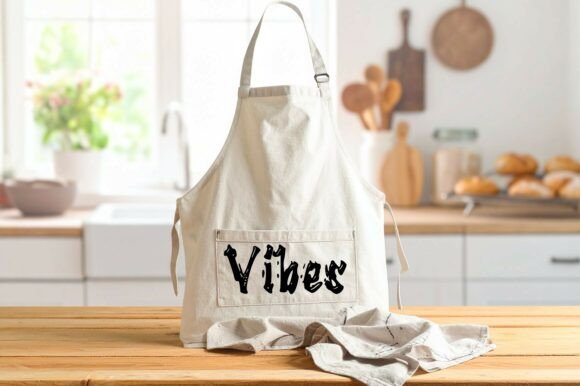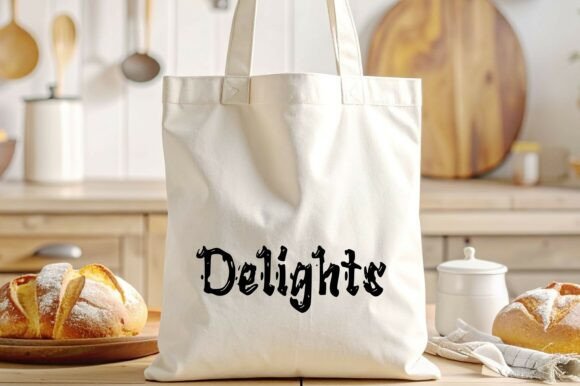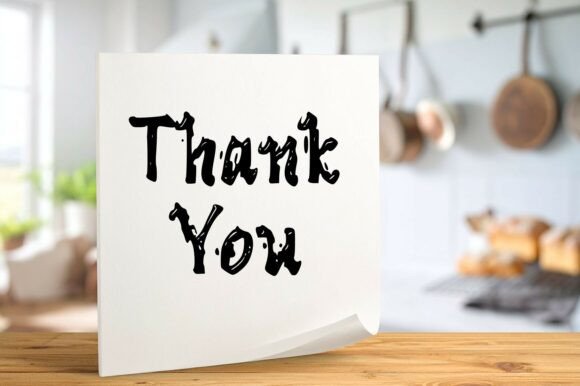
Welcome to the Cozy World of Coleslaw Font
As designers, we’ve all been there – stuck in a project, struggling to find the perfect font that captures the essence of our vision. I recall working on a rural-themed branding project, where I was determined to find a typeface that exuded warmth, comfort, and a touch of rustic charm. That’s when I stumbled upon Coleslaw, a font design that instantly transported me to a cozy country farmhouse. In this article, we’ll dive into the world of Coleslaw, exploring its unique features, and how to make the most of this beautiful font.
A Font that Feels like Home
Coleslaw is more than just a typeface; it’s a sensory experience that embodies the simplicity and honesty of countryside living. Its organic contours and subtly aged texture give it a distinctive, gentle irregularity that lends your text a hearty character. This font is perfect for designers, crafters, and creative hobbyists looking to add a touch of authenticity to their work.
What I Love About Coleslaw ✨
- ✅ Organic and rustic feel that adds warmth to any text
- ✅ Clear readability, making it versatile for various purposes
- ✅ Artistically symmetrical upper and lower case characters
- ✅ Subtly aged texture that gives it a unique, handmade feel
While Coleslaw is an exceptional font, there are a few minor limitations to consider:
- 🤔 Limited availability of stylistic alternates, which may limit its use in certain design projects
- ⚠️ May not be suitable for very small font sizes, as some details may get lost
The Story Behind Coleslaw
Coleslaw was designed with the intention of capturing the essence of rural living. Its creator, a passionate typographer, drew inspiration from traditional farmhouses, vintage signs, and handmade crafts. The result is a font that feels genuine, raw, and authentic – perfect for designers looking to add a touch of warmth to their work.
| What is the best use for Coleslaw font? | Coleslaw is perfect for branding, packaging, and advertising projects that require a warm, rustic feel. |
| Is Coleslaw suitable for digital use? | Yes, Coleslaw is optimized for both print and digital use, making it versatile for various design projects. |
| Does Coleslaw come with any OpenType features? | Yes, Coleslaw includes a range of OpenType features, such as ligatures and stylistic alternates, to enhance your typography. |